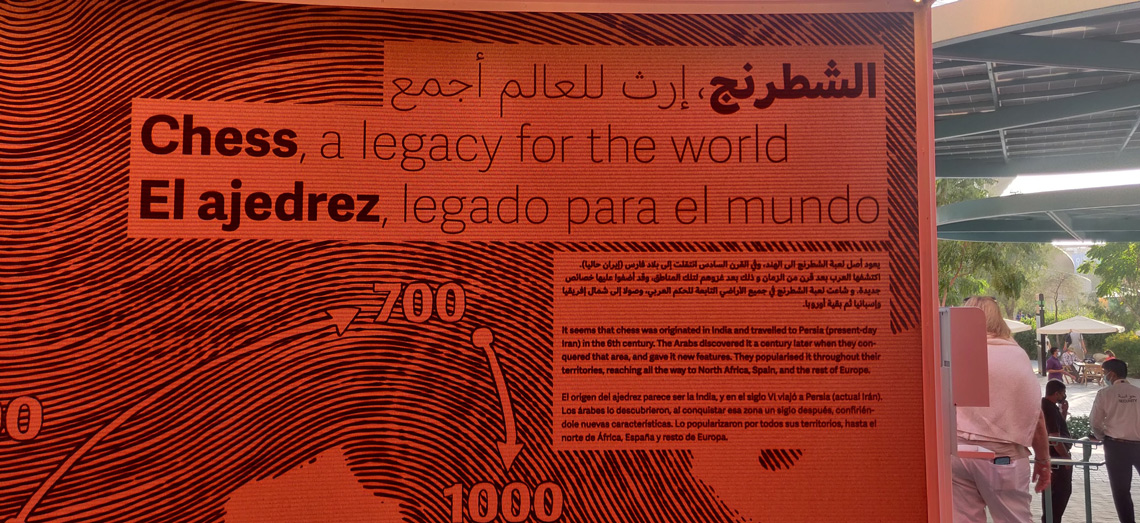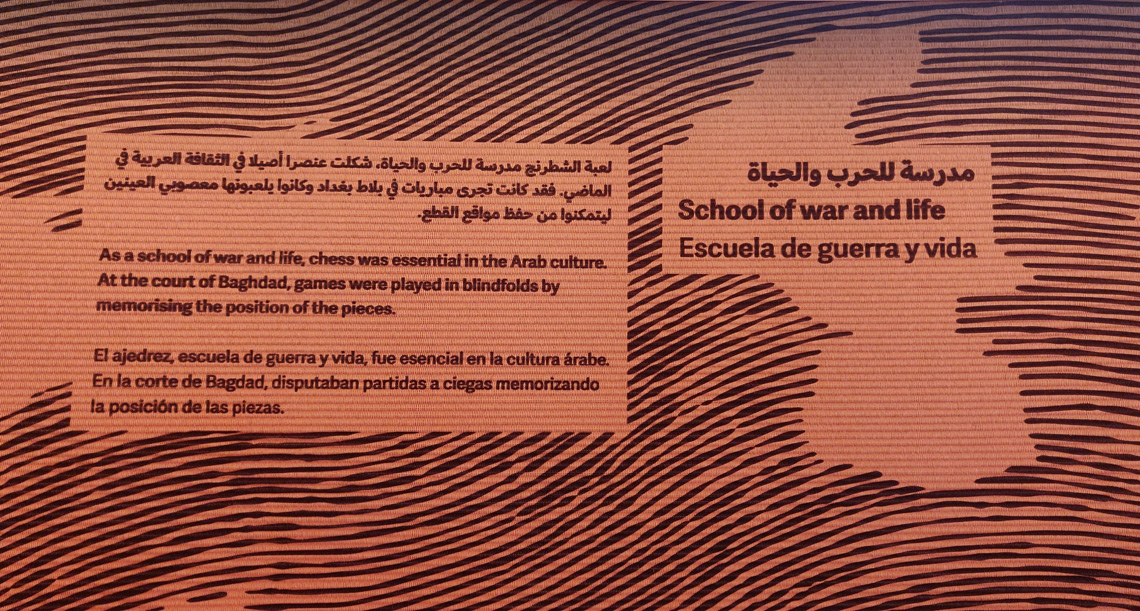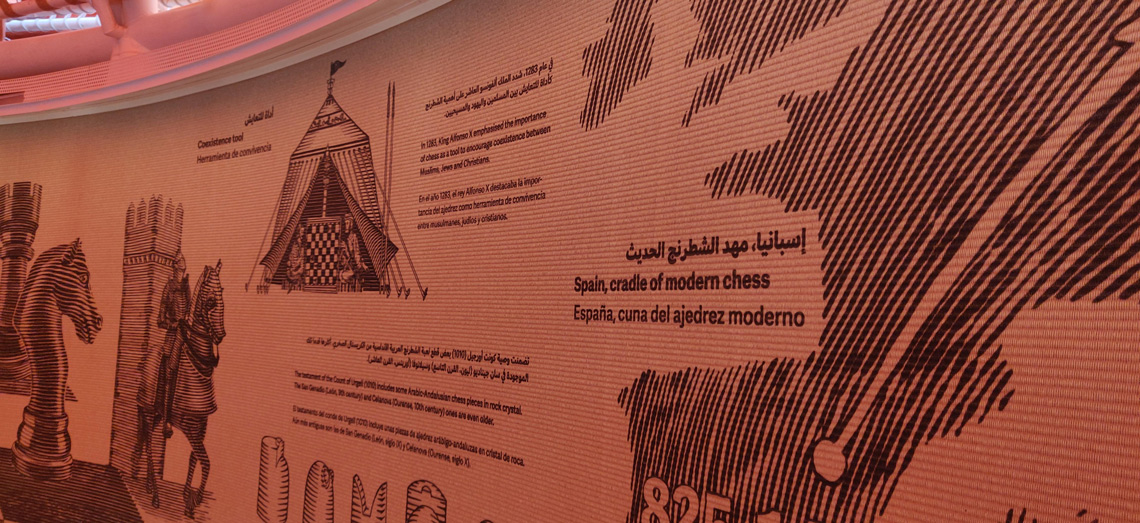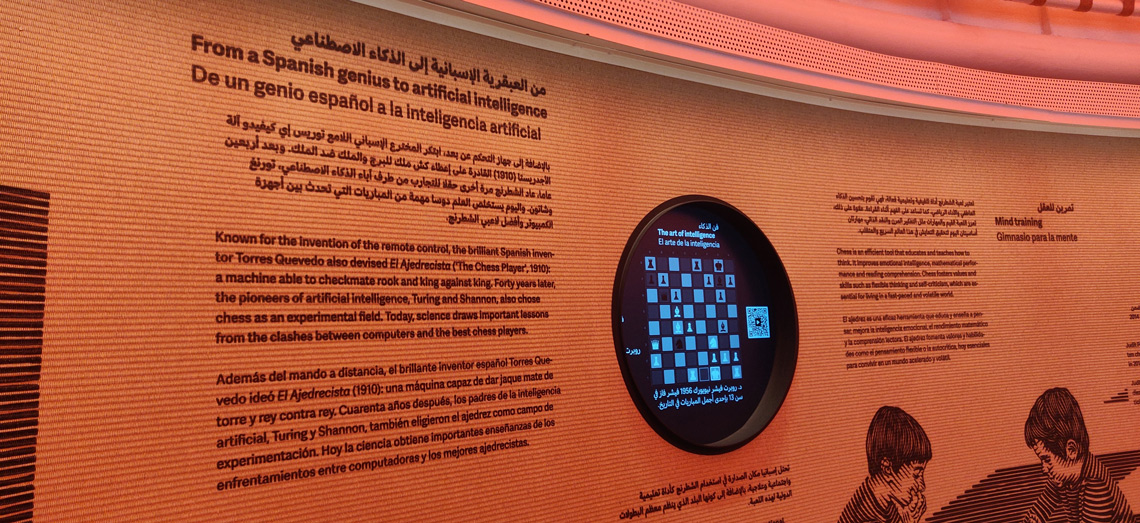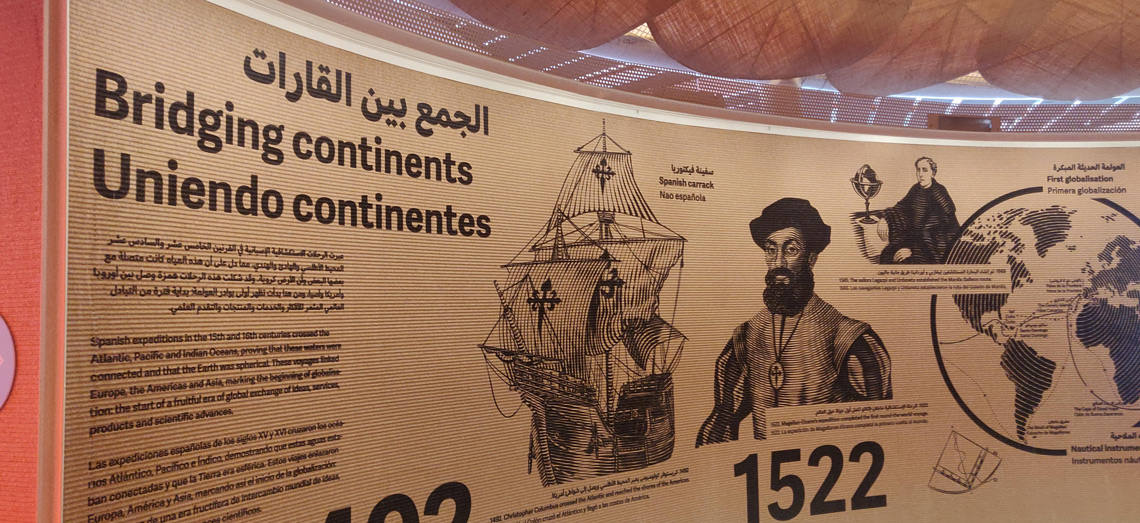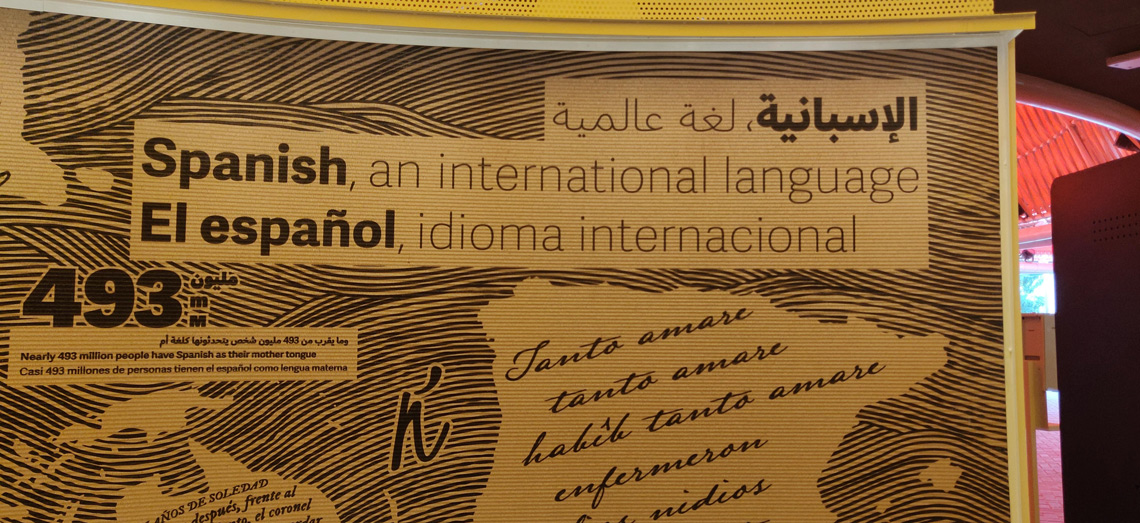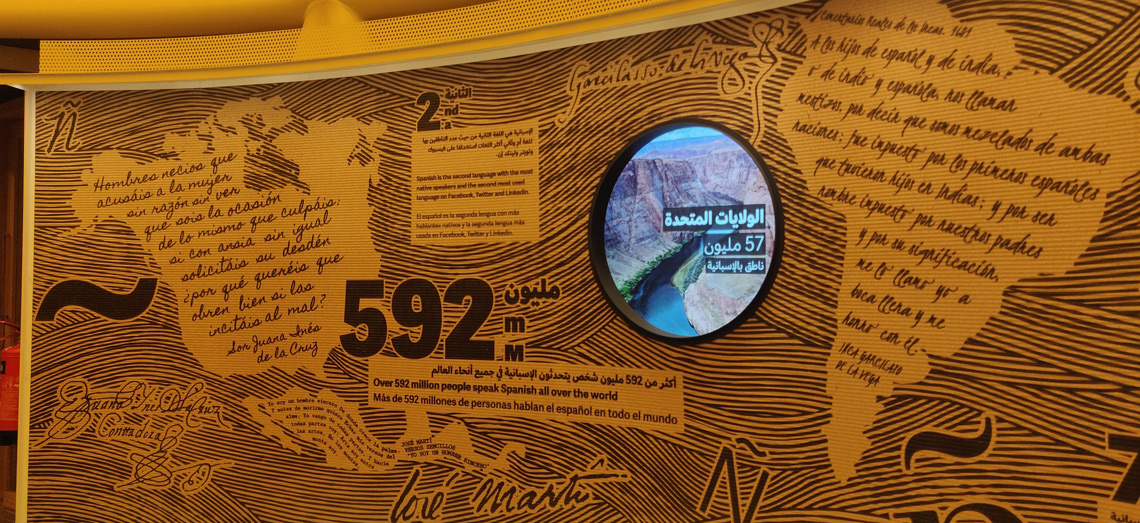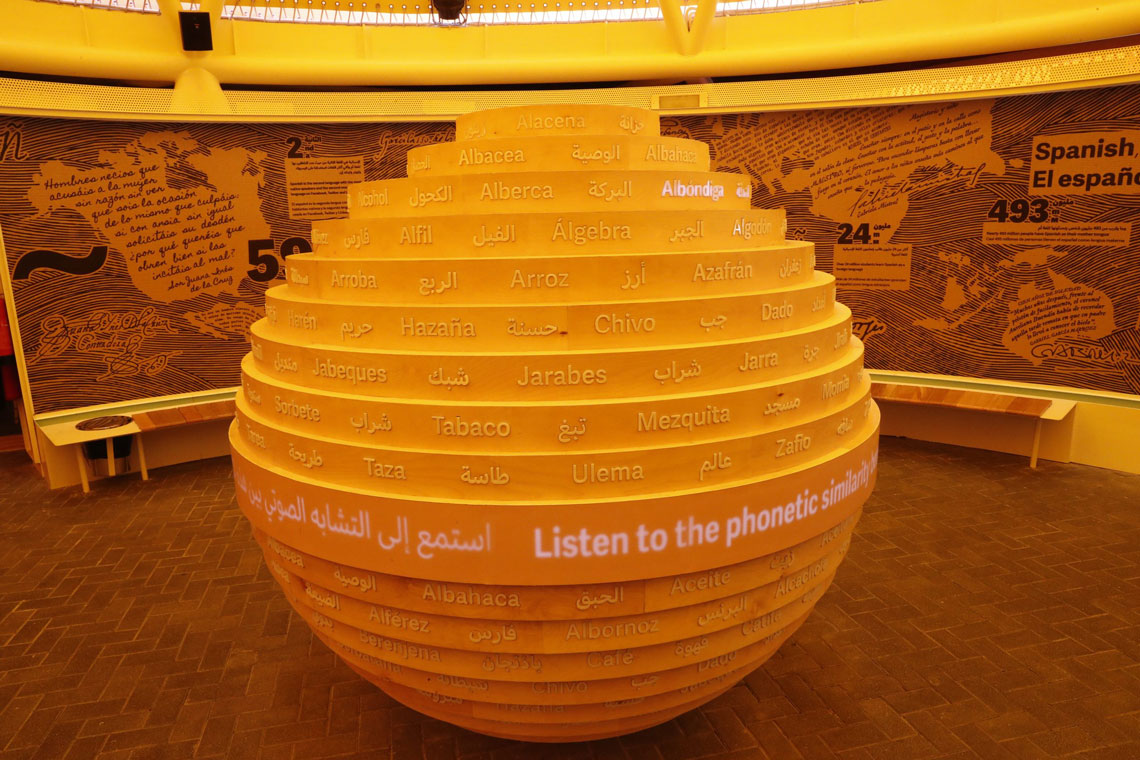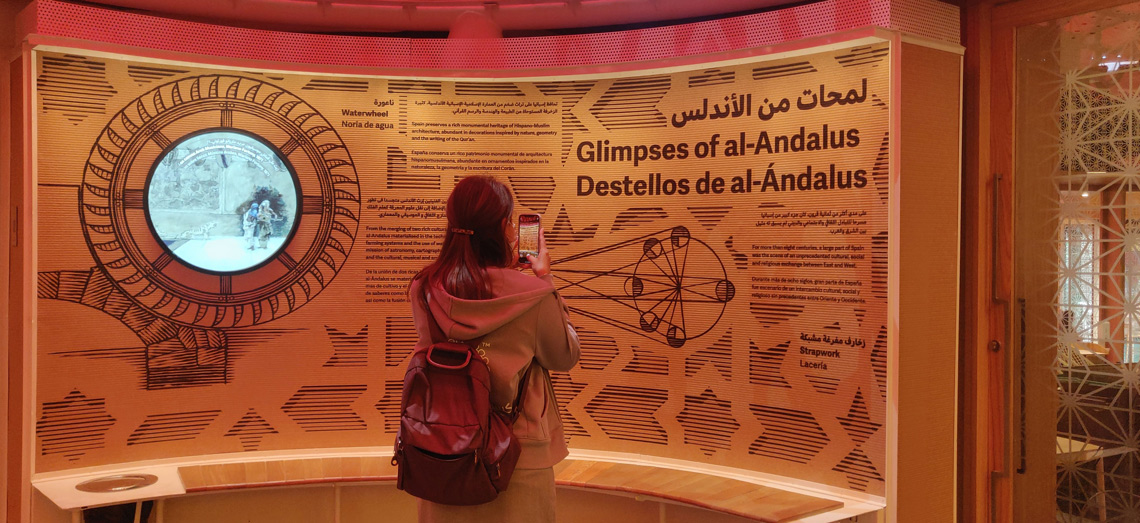
The Spanish Pavilion puts emphasis on sustainability and collective intelligence. Under the slogan “Intelligence for life”, several interactive and educational areas touching on art, design, and technology have been created.
On the ground level are a series of open places with informative panels and installations showing relevant moments of Spanish culture. The exhibition highlights some historical links between Spain’s relationship with Arab culture, such as the legacy of chess.
The exhibition also includes a 3D-printed artificial forest, called El Bosque de la Inteligencia (The Forest of Intelligence), a metaphorical space that illustrates Spanish innovative contributions to the protection and sustainable use of natural resources. Visitors discover the initiatives amongst others via animated graphics, holograms, and audiovisual pieces.
All the texts on the exhibition panels, installations, and interactive screens are set using Adelle Sans in English and Spanish, combined with Adelle Sans Arabic.
Whether large or small, printed, digital, or video, Adelle Sans was made for this scenario: as a flexible and personable world-ready font family, providing true multilingual font support.